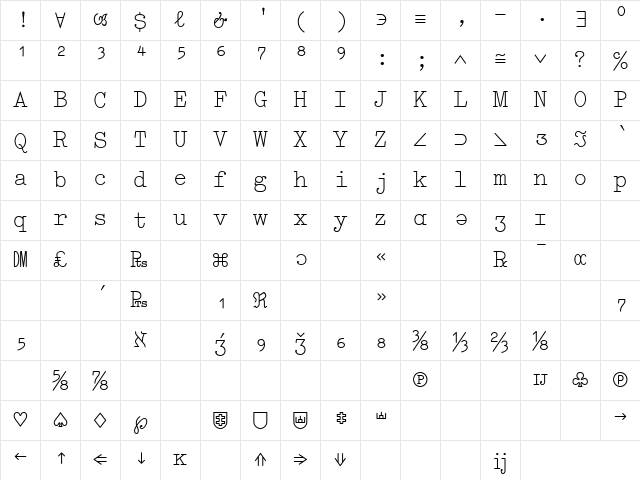
Complete Elementa Symbol Medium glyph index. Displaying only characters natively supported by Elementa Symbol Medium font.
Elementa Symbol is a composed and adaptable typeface that performs quietly and consistently across a wide range of design contexts.